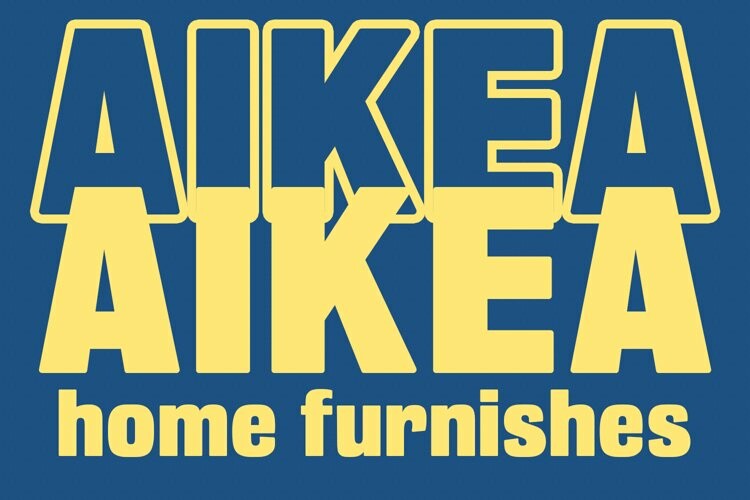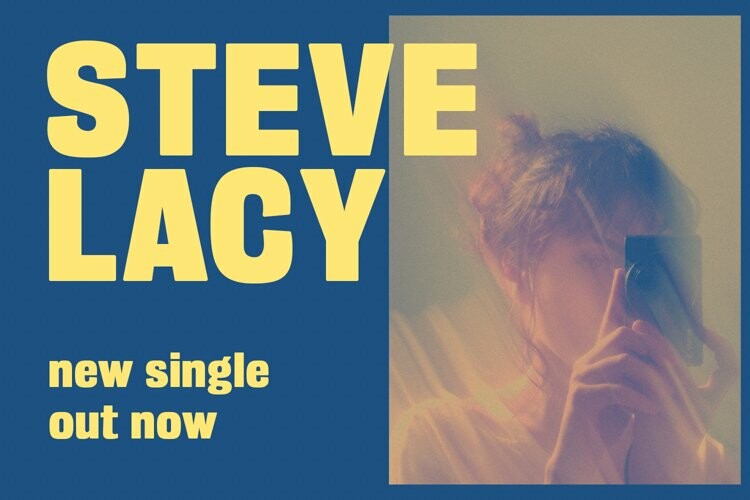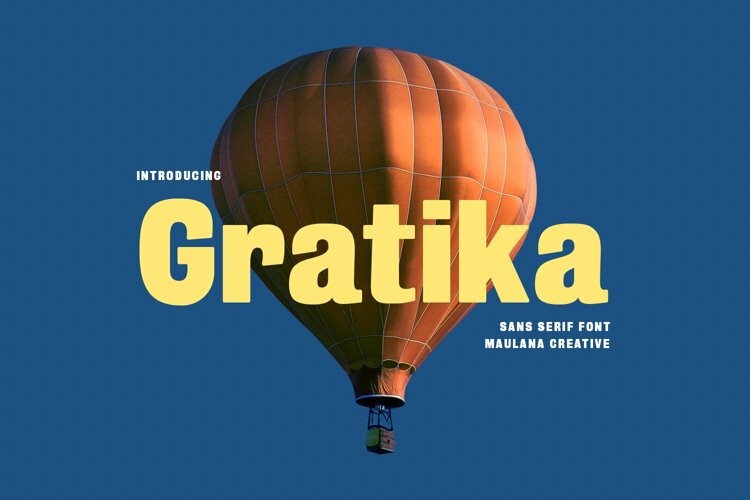
Gratika Font
Gratika FontGratika is a Strong Sharp edges sans Display font. ExtraBold stroke, fun character with a bit of ligatures and alternates. To give you an extra creative work. Gratika font support multilingual more than 100+ language. This font is good for logo design, Social media, Movie Titles, Books Titles, a short text even a long text letter and good for your secondary text font with script or serif. Make a stunning work with Gratika font.